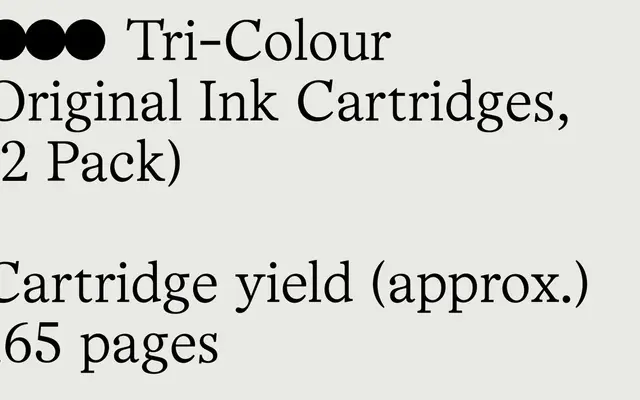
Office Times
seriftransitional serif
A serif typeface from Boulevard LAB drawing on the Times tradition for office and text use.
Office Times sits within the transitional serif genre, referencing the workhorse Times lineage associated with editorial and document typesetting. Boulevard LAB reframe this for contemporary office and text applications. Precise details on weights and character coverage were not available from the page content.
The name references Times, a canonical transitional serif; without further page content, classification defaults to that lineage based on naming convention.